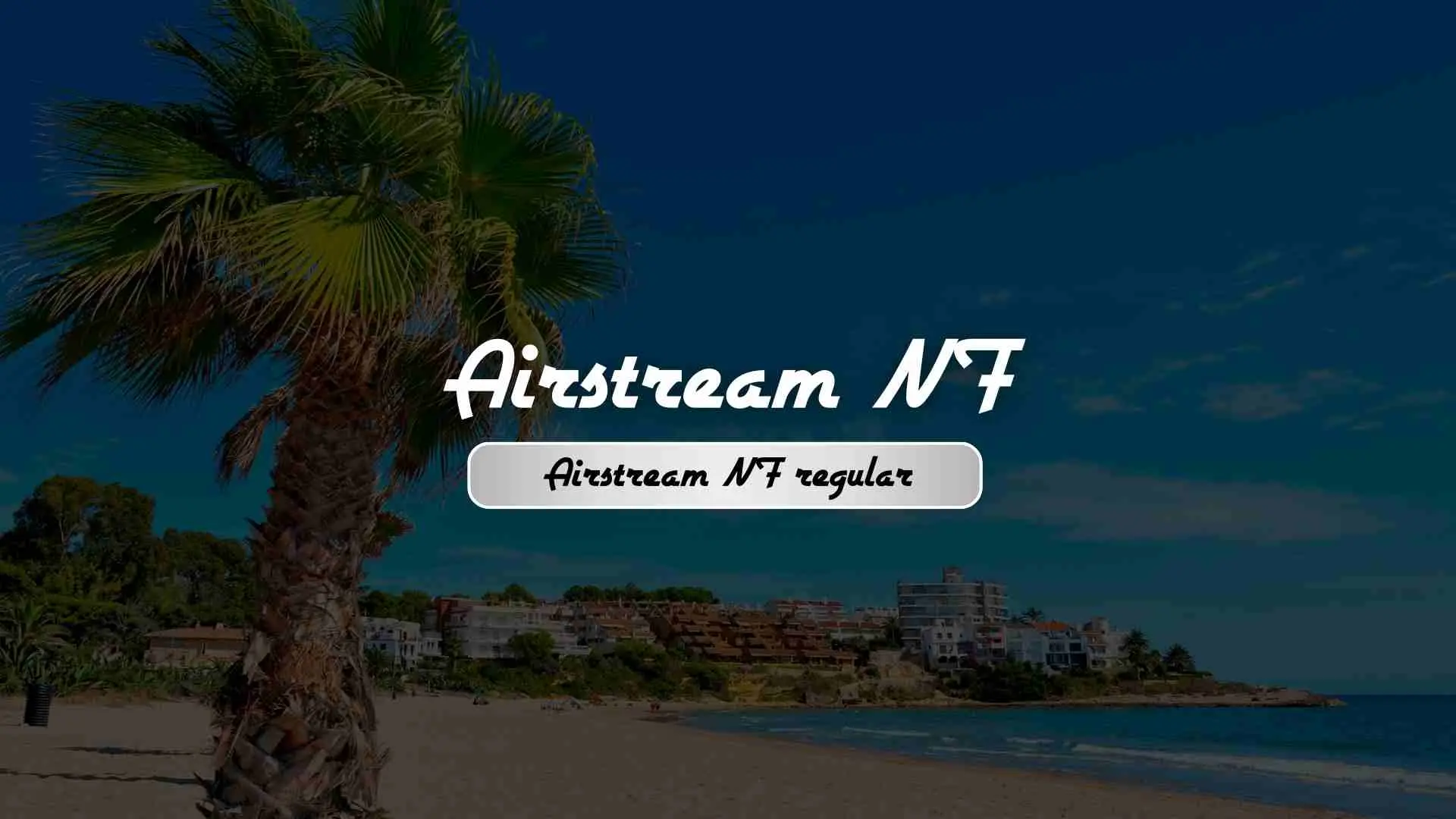
The font Airstream NF Regular, designed by Nick Curtis, falls under the Script category & Airstream NF font family. Its smooth, flowing letterforms make it a versatile choice for projects that require both elegance and readability. Airstream NF is particularly well-suited for Branding, Headlines, Titles, Event Posters, Event flyers, Logos and Merchandise. With its balance of simplicity and decorative appeal, this font brings a polished touch to both personal and professional designs.